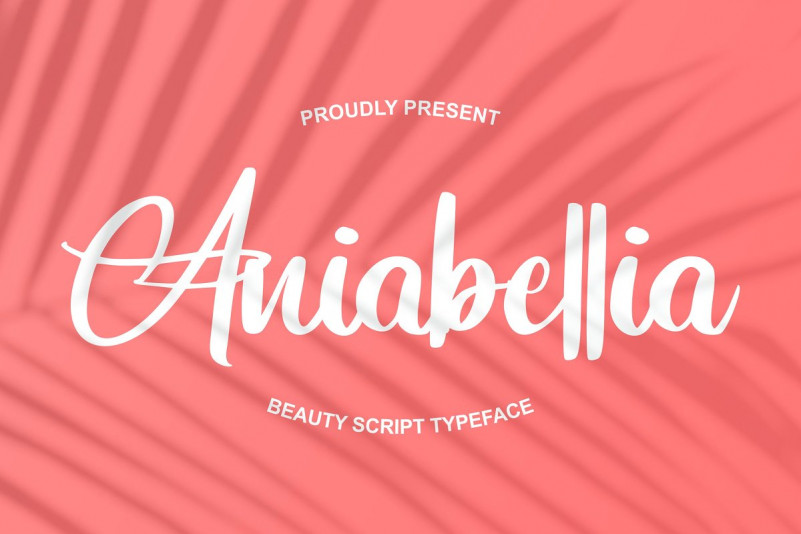
Aniabellia Font
Aniabellia | Beauty Script Typeface with a calligraphy style, So beautiful on invitation like greeting cards, branding materials, business cards, quotes, posters, and more!